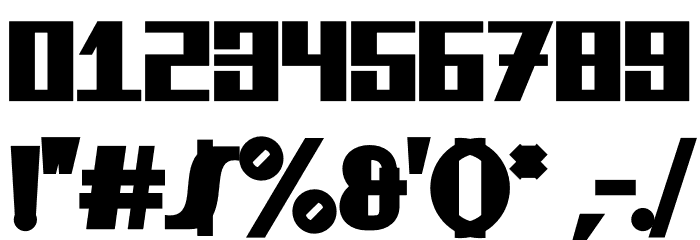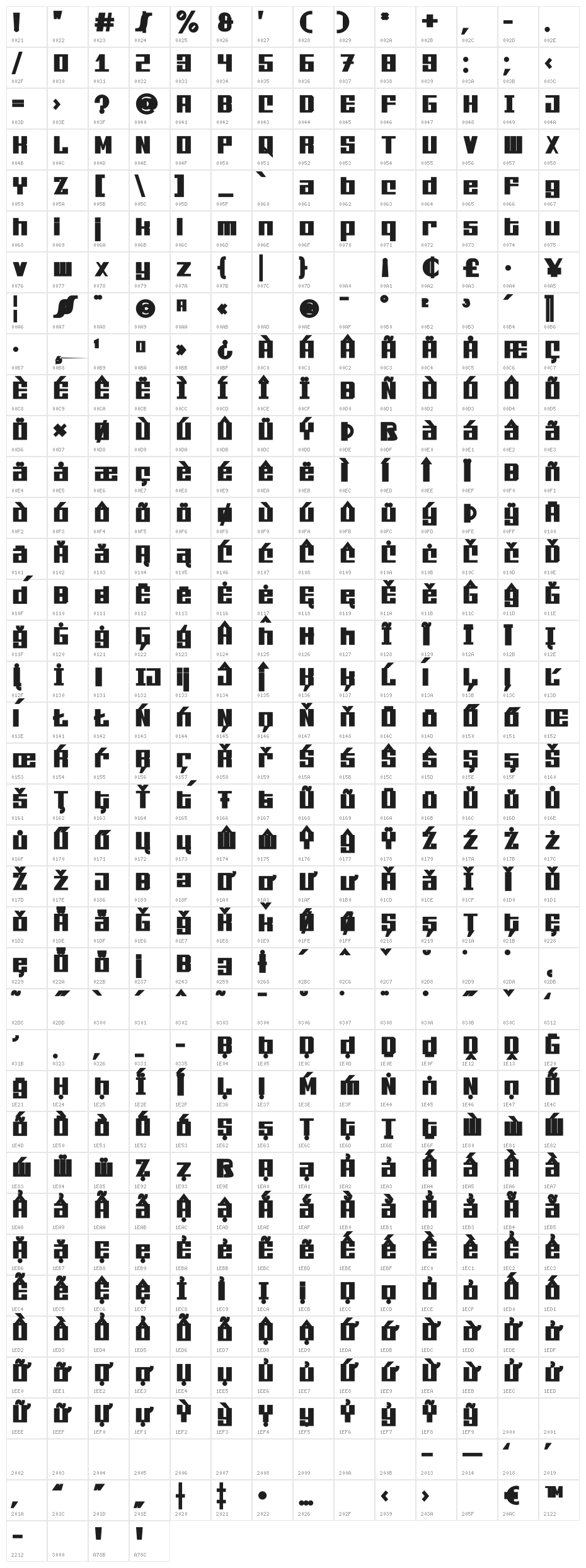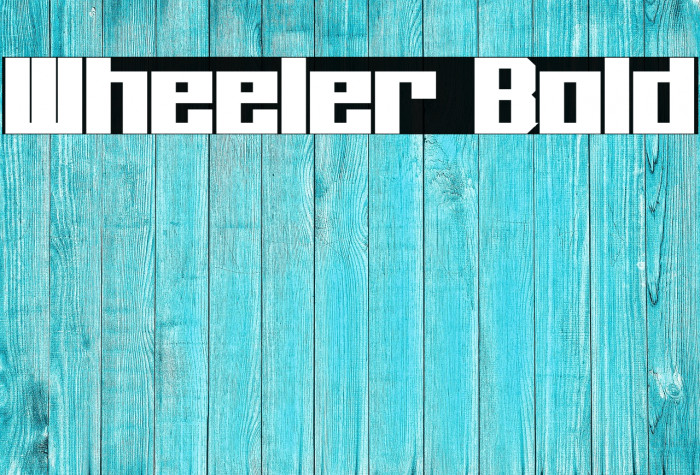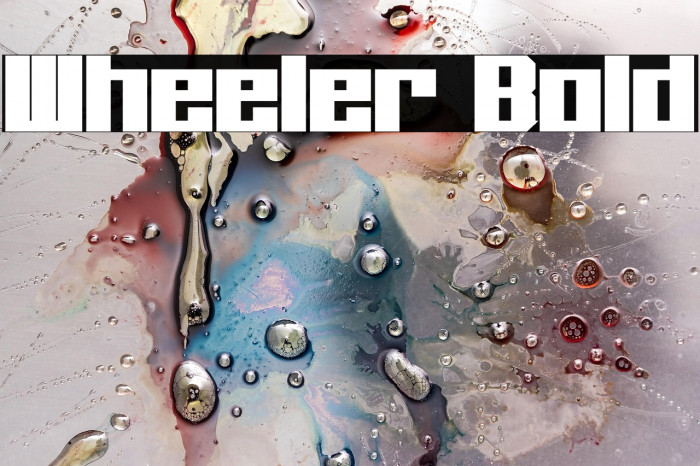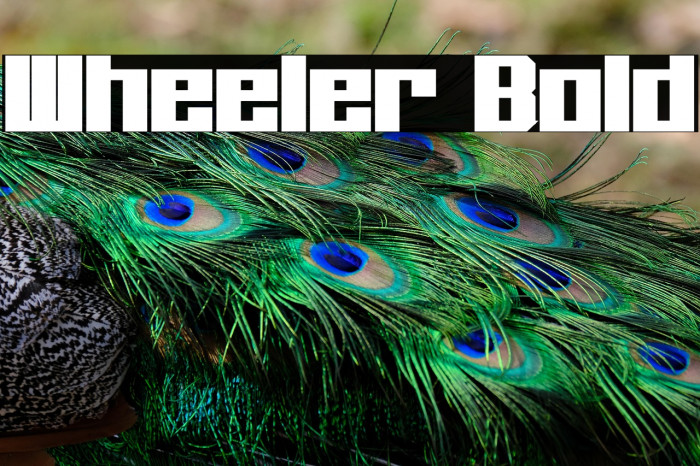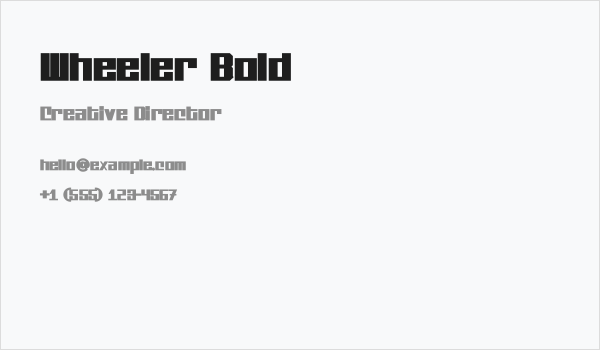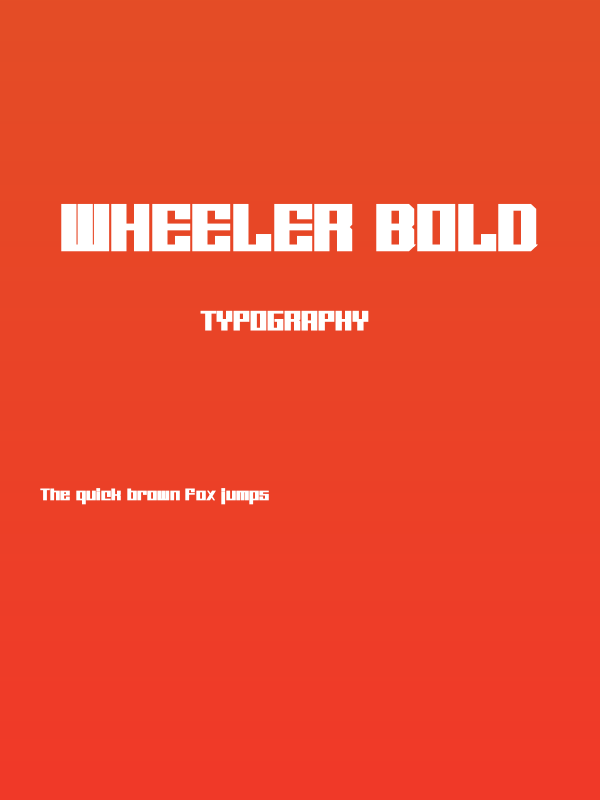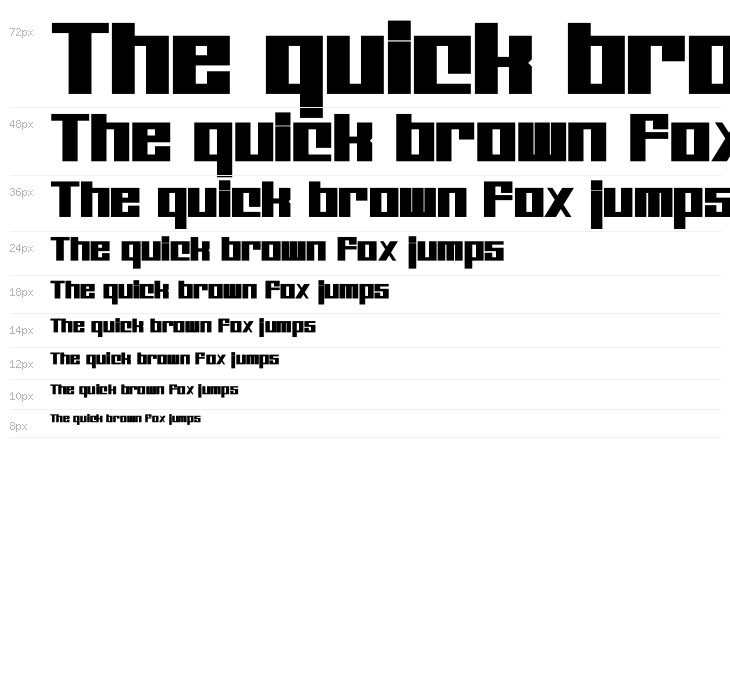
Wheeler Bold Font
Wheeler Bold Description
This font features a bold, geometric design with strong, angular lines and a blocky appearance. The characters are uniformly wide, creating a sense of stability and strength. The uppercase letters are particularly striking, with sharp edges and a modern aesthetic. The lowercase letters maintain the same boldness, ensuring consistency across the typeface. Numbers and special characters are designed with the same geometric precision, making them stand out. This font is ideal for projects that require a strong visual impact.
| Proposed Projects | Ideal for posters, logos, headlines, and branding materials that require a bold statement. |